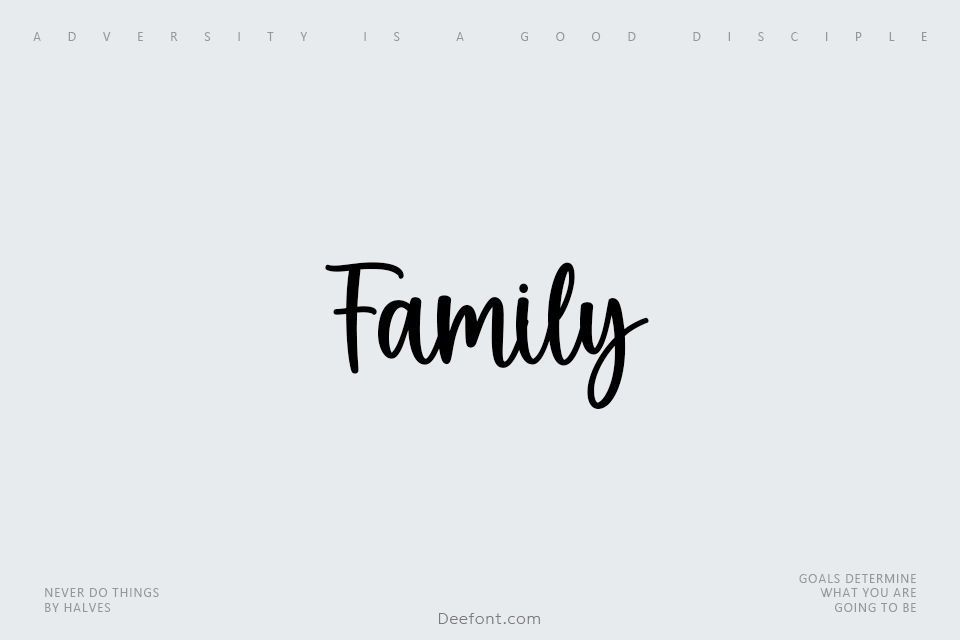
Family Font
Family Font is a captivating handwritten script typeface designed by Graphix Line Studio that brings elegance and versatility to your creative projects. With its artistic strokes and graceful curves, this font adds a personal and authentic feel to any design. Suitable for various applications from wedding invitations to greeting cards and social media graphics, Family Font combines warmth and intimacy with modern sophistication. Its semi-bold weight conveys confidence while maintaining a charming handwritten appeal, offering endless possibilities to make your designs stand out with a unique blend of creativity and personal touch.